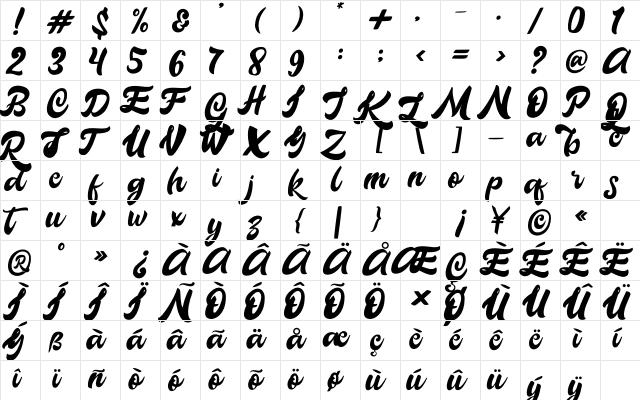
Galatik Regular
| Designer | Agni Ardi Rein Prasetyo |
Design Context for Galatik Typeface
Galatik is a composed and adaptable typeface that performs quietly and consistently across a wide range of design contexts.